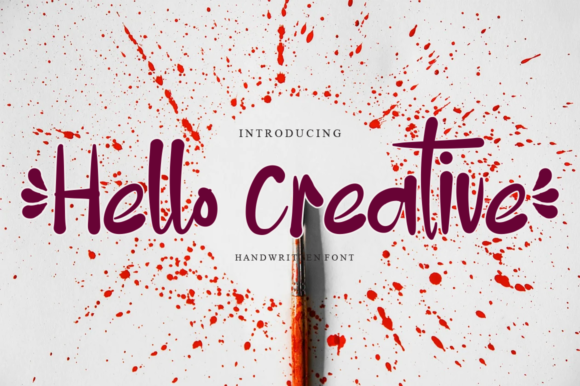
Introducing Hello Creative Font, the ultimate script font that will transform your designs into captivating masterpieces. Crafted by renowned font artisan A2-lucky, Hello Creative embodies the essence of authenticity and creativity.
Immerse yourself in a world of boundless possibilities as you explore the allure of this meticulously handwritten font. With Hello Creative, your chalkboard quotes will ignite inspiration, and your teaching materials will captivate imaginations. Its unique charm adds a touch of genuine personality to every creation, making your designs stand out from the crowd.
Hello Creative is not just a font; it's an invitation to unleash your artistic spirit. Whether you're a seasoned designer or just starting your creative journey, this font will empower you to express yourself with unparalleled style. Its natural flow and effortless elegance will elevate your designs, leaving a lasting impression on your audience.
Say goodbye to ordinary fonts and embrace the extraordinary with Hello Creative. Its versatility knows no bounds, making it the perfect choice for a wide range of projects, from business cards that exude professionalism to marketing materials that demand attention. Let Hello Creative be your secret weapon to captivate, engage, and inspire.
With Hello Creative, you're not just downloading a font; you're investing in a world of endless creative possibilities. Its timeless appeal ensures that your designs will remain fresh and captivating for years to come. Embrace the power of Hello Creative today and unlock the gateway to limitless design potential.